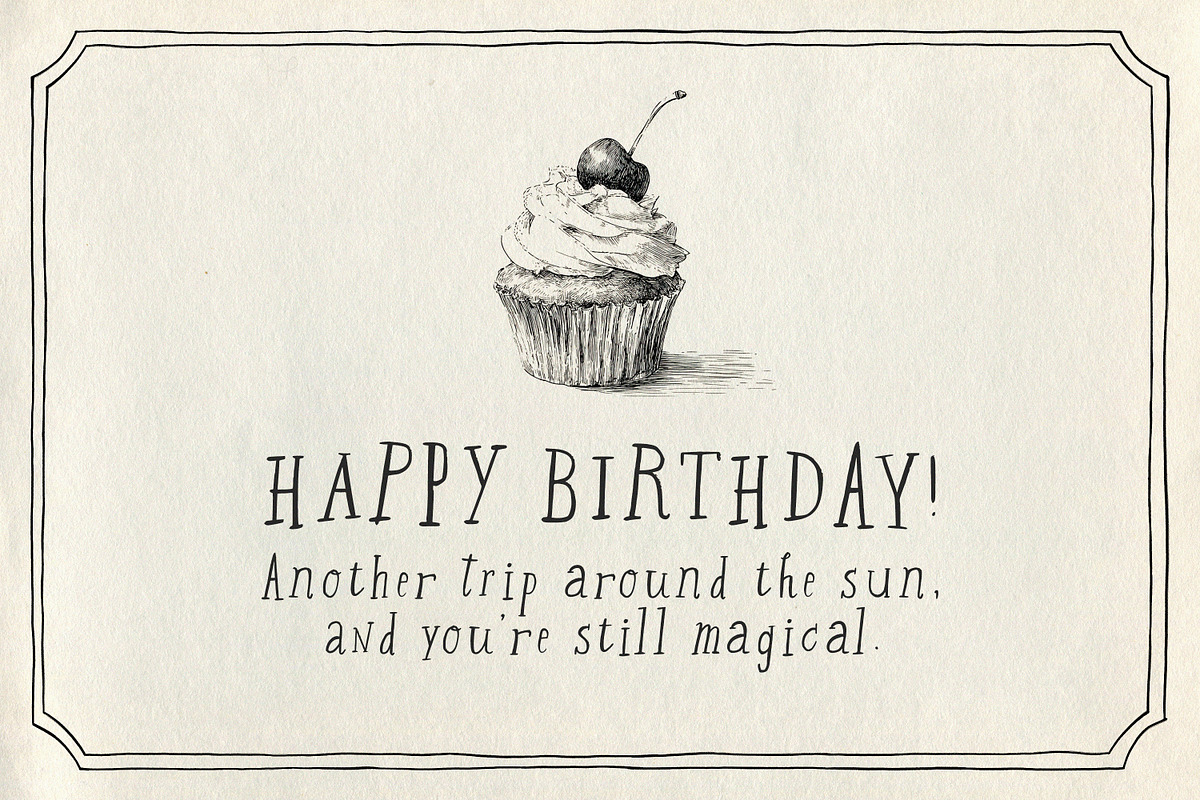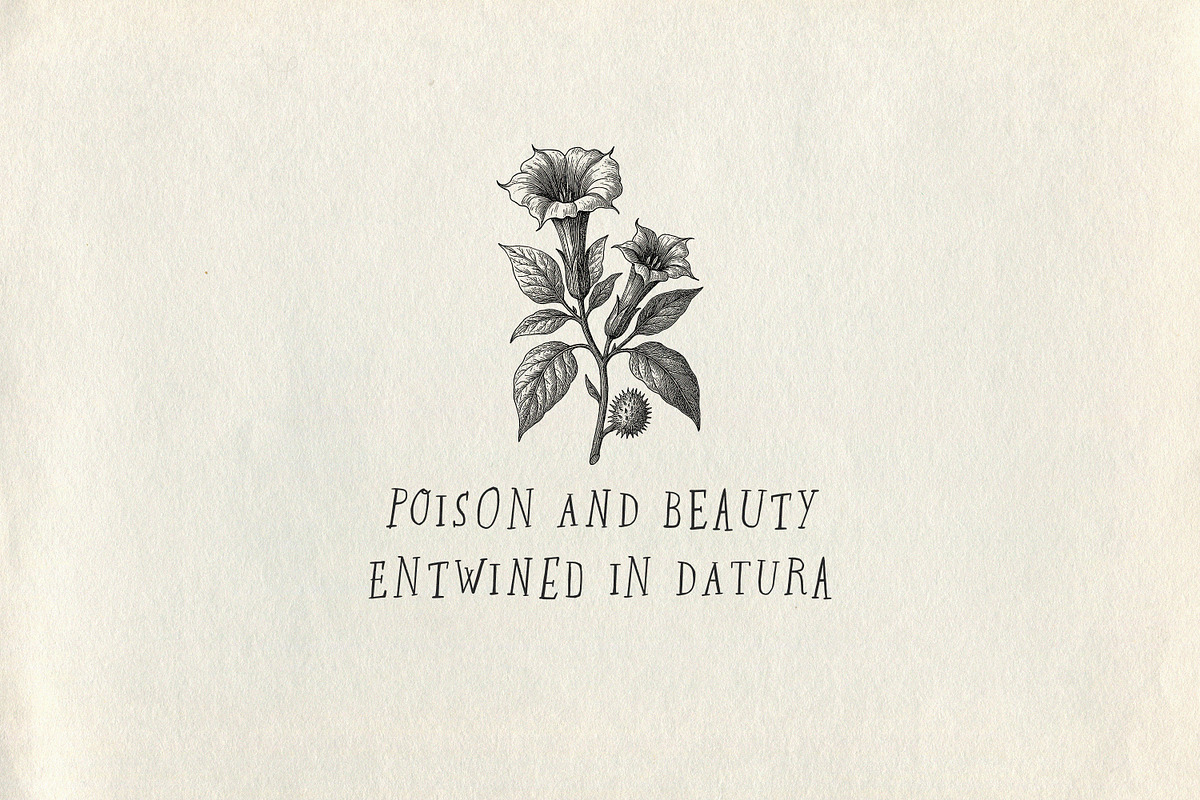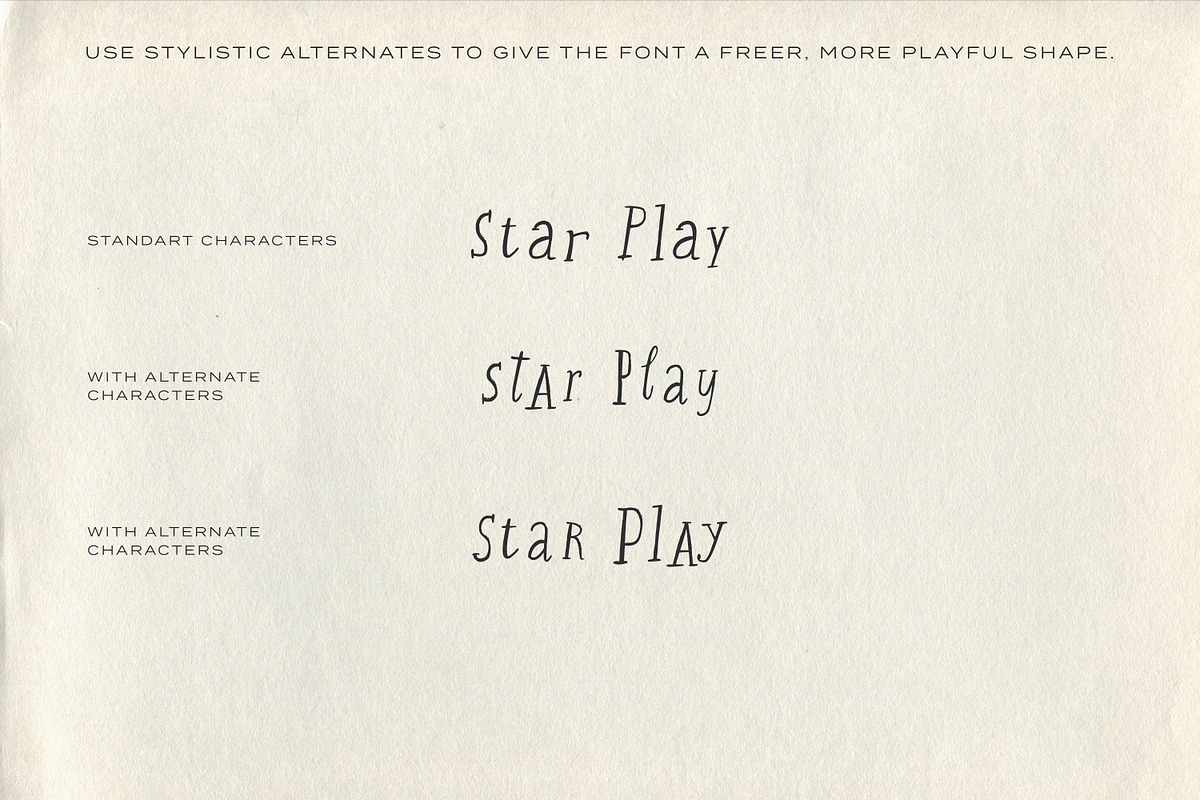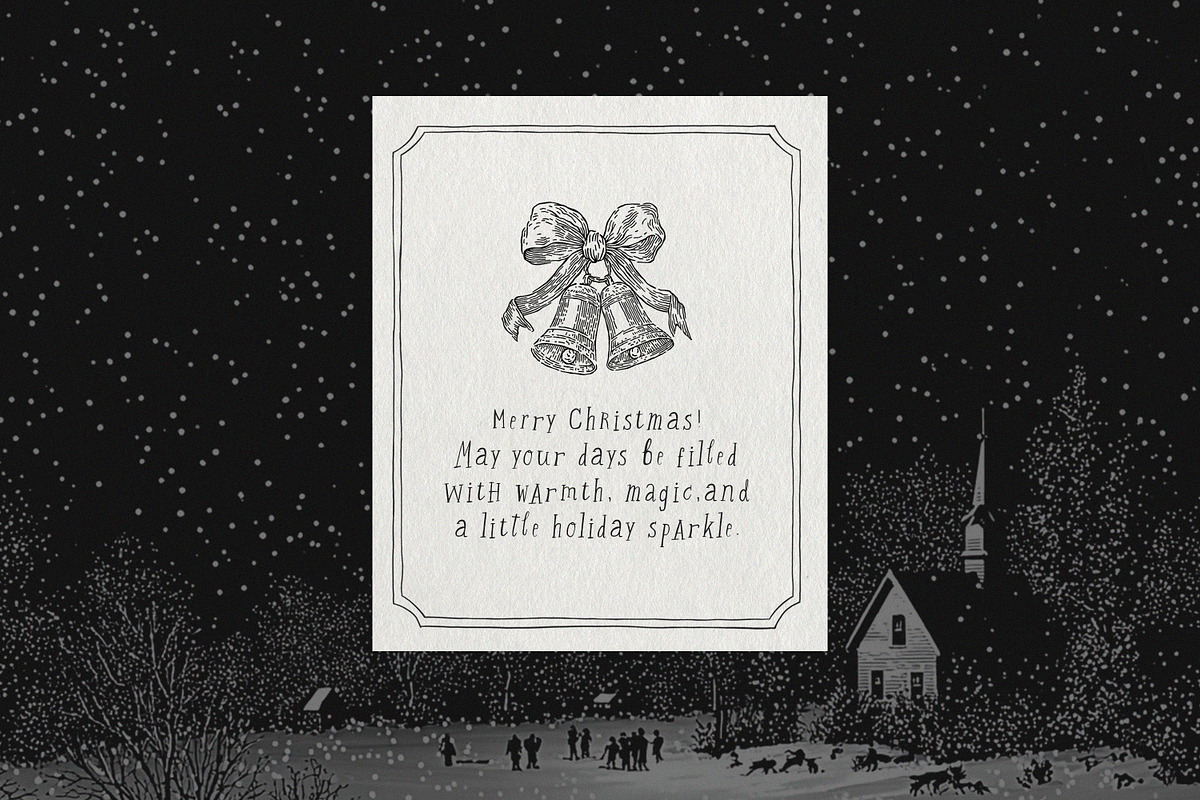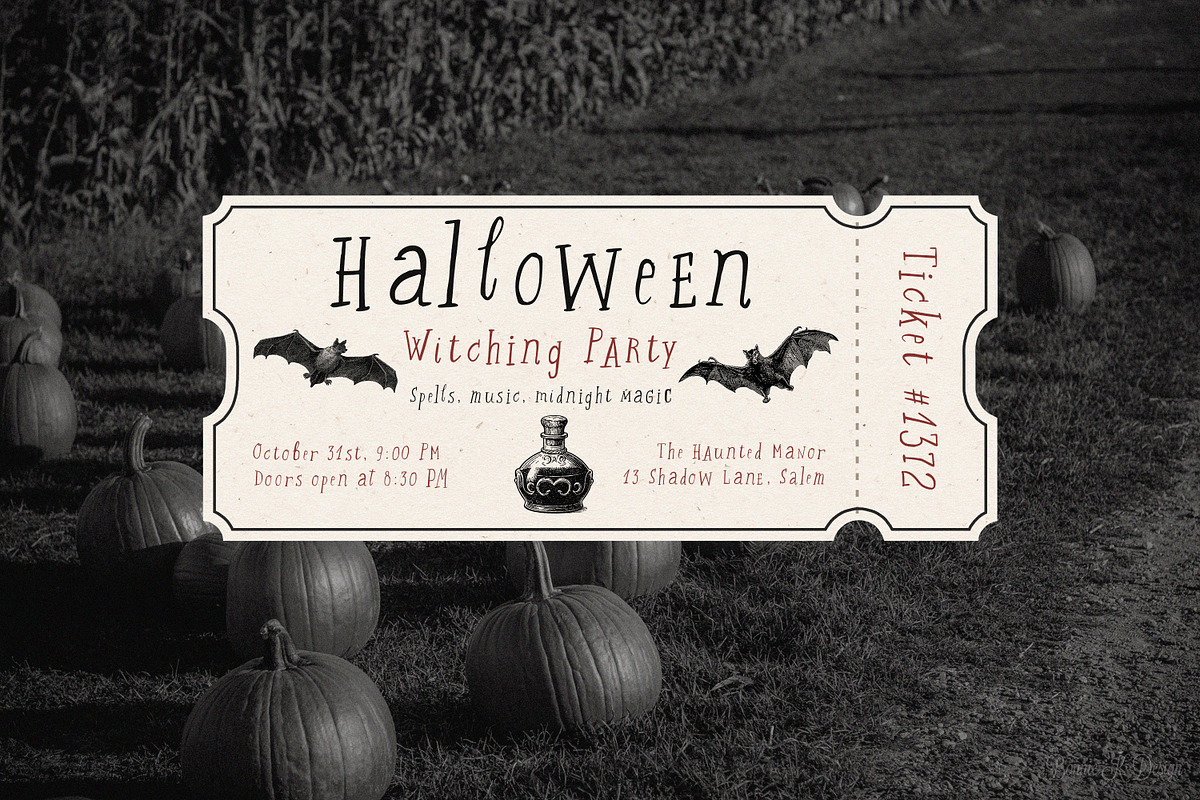
Lunar Eclipse Celestial Display Font
Lunar Eclipse is a hand-drawn display font with a celestial, whimsical vibe. Its playful curves and stylistic alternates make every word feel full of motion and personality.
- Standard & alternate characters
- Numbers, punctuation & symbols
- Halloween posters and spooky graphics
- Christmas cards, festive packaging & seasonal decor
- Birthday invitations and party signage
- Wedding stationery, logos, and creative branding
From mystical to festive, Lunar Eclipse adapts to every celebration and makes your text shine with character.